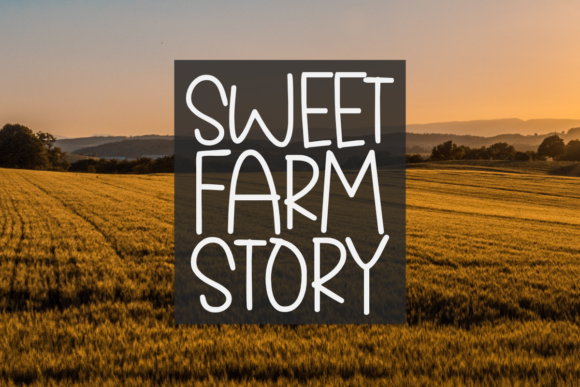
Introducing the charming and whimsical Sweet Farm Story Font, an exceptional script font that will captivate your heart and transform your creative endeavors. Embark on a delightful journey with this enchanting font, designed to evoke the warmth and simplicity of a rustic farmhouse.
With its delicate strokes and playful glyphs, Sweet Farm Story exudes an unmistakable handcrafted charm that is truly captivating. Its free-flowing nature adds a touch of personality and authenticity to your designs, whether it's a heartfelt chalkboard message, captivating teaching materials, or any project that calls for a down-to-earth aesthetic.
Immerse yourself in the nostalgic beauty of Sweet Farm Story, reminiscent of a simpler time when handwritten letters conveyed genuine emotions. Its charming imperfections and effortless style create a sense of intimacy and connection that resonates with your audience. Whether you're a seasoned designer seeking a unique font to elevate your projects or simply a creative enthusiast looking to add a personal touch to your creations, Sweet Farm Story is the perfect choice.
Unlock the endless possibilities of Sweet Farm Story and let your imagination run wild. Explore the vast array of applications where this remarkable font shines:
- Craft eye-catching social media posts, blog designs, and website elements that demand attention.
- Design unforgettable invitations, greeting cards, and other printed materials that leave a lasting impression.
- Create stunning logos, branding elements, and product packaging that capture the essence of your brand.
- Add a touch of rustic charm to your marketing materials, presentations, and other business documents.
- Elevate your digital content with engaging infographics, presentations, and e-books that captivate your readers.
Sweet Farm Story is more than just a font; it's an artistic expression that invites you to connect with your audience on a deeper level. Its genuine and heartfelt appeal evokes emotions and creates a sense of nostalgia that will leave a lasting impact.